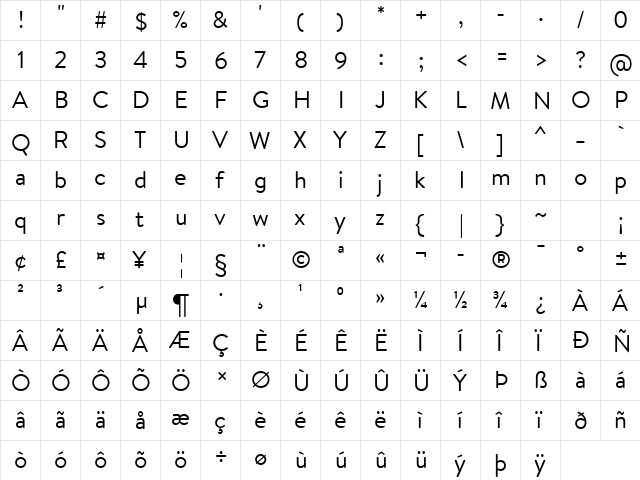
Brandon Text Regular Regular
| Foundry | Hannes von Doehren |
| Designer | Hannes von Doehren |
Design Context for Brandon Text Regular Typeface
Brandon Text Regular is a composed and adaptable typeface that performs quietly and consistently across a wide range of design contexts.
Pro Tip: Use Brandon Text Regular in both headline and body roles to test its range before committing to a single application.